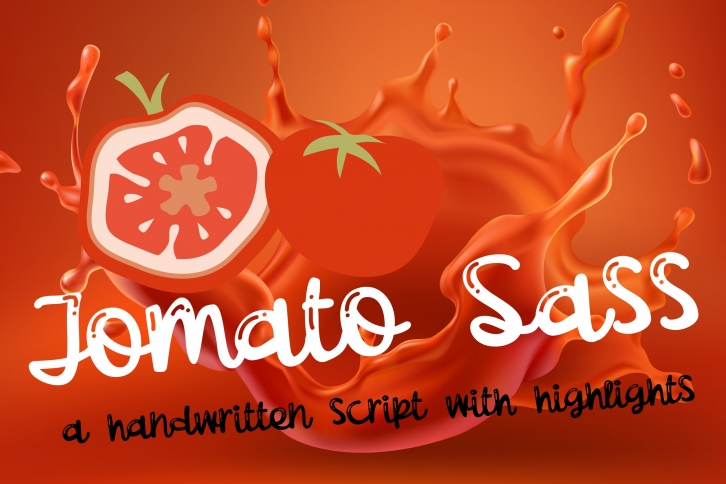
PN Tomato Sass is a beautiful font that was designed by Illustration Ink. It's a great choice for designers and creatives who need such a font. It was released on January 25, 2019 and the file size is 18.29 MB. PN Tomato Sass may give a more youthful, expressive and casual look to your project. It is a very beautiful, refined, elegant, and high-quality font.